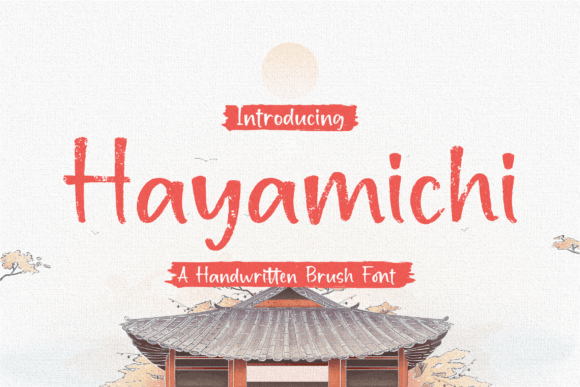
Unleashing the Art of Handwritten Elegance: Introducing Hayamichi Font
Do you remember the moment when you first saw a beautifully crafted handwritten font in a magazine or on a product packaging? The way it seemed to dance across the page, capturing your attention and drawing you in? That’s exactly what the Hayamichi Font aims to achieve – to bring a touch of handwritten elegance to your designs.
This Handwritten Brush Font is designed for creatives who want to add a personal touch to their projects. Whether it’s product packaging, branding, or social media graphics, Hayamichi Font is perfect for making your designs stand out. With its unique, handcrafted feel, it’s sure to add a level of sophistication and whimsy to your work.
Hayamichi Font Key Features
- Size: The font family includes 4 weights: Thin, Light, Regular, and Bold, catering to various design needs and preferences.
- Unique Characteristics: Hayamichi Font features a distinctive, elegant design with a mix of traditional and modern elements, making it ideal for use in creative, artistic, and cultural contexts.
- Font Metrics: Hayamichi Font includes advanced font metrics, such as kerning and ligatures, to ensure precise typography and a professional appearance in any design.
Hayamichi Font Review
Hayamichi Font is a stunning display font designed to evoke the elegance of traditional Japanese architecture. Here’s my honest take on this beautiful font:
- Unique Japanese flair: Hayamichi Font has a distinct aesthetic that seamlessly blends traditional Japanese elements with modern design sensibilities.
- Perfect for luxury brands: This font’s opulence and sophistication make it an ideal choice for high-end fashion, jewelry, and hospitality brands.
- Extensive character set: The font includes a wide range of characters, including kanji and kana, making it suitable for various language requirements.
- Readability in smaller sizes: While Hayamichi Font looks stunning at larger sizes, it can become challenging to read at smaller font sizes due to its intricate details.
- Limited font weights: The font currently offers only a few weights, which may not provide enough flexibility for designers working on complex typography projects.
Hayamichi Font is a beautiful, high-end display font that’s perfect for luxury brands and projects where a touch of Japanese elegance is desired. However, its limitations in readability and font weights may require designers to adjust their typographic approach. Nevertheless, this font is a stunning addition to any designer’s toolkit.
The Hayamichi font is a unique and elegant script font, making it perfect for:
- Artistic and creative projects
For optimal results, use the Hayamichi font in conjunction with high-quality images and design elements to create a cohesive and visually appealing design.